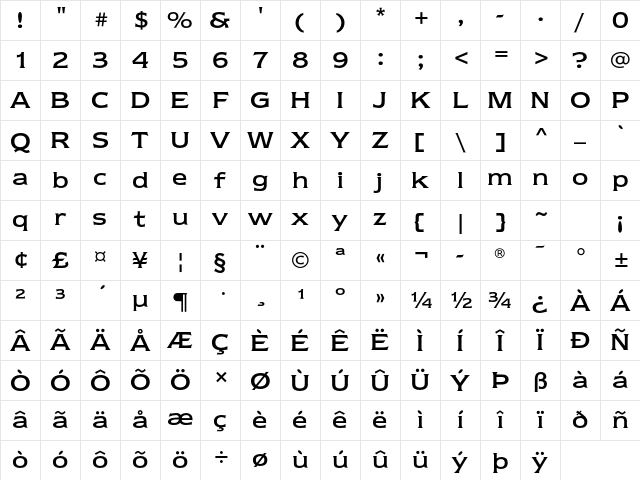
Newtext ITC Std Regular
Designer: Ray Baker
Design Context for Newtext ITC Std
Newtext ITC Std is a composed and adaptable typeface that performs quietly and consistently across a wide range of design contexts.
Pro Tip: Use Newtext ITC Std in both headline and body roles to test its range before committing to a single application.